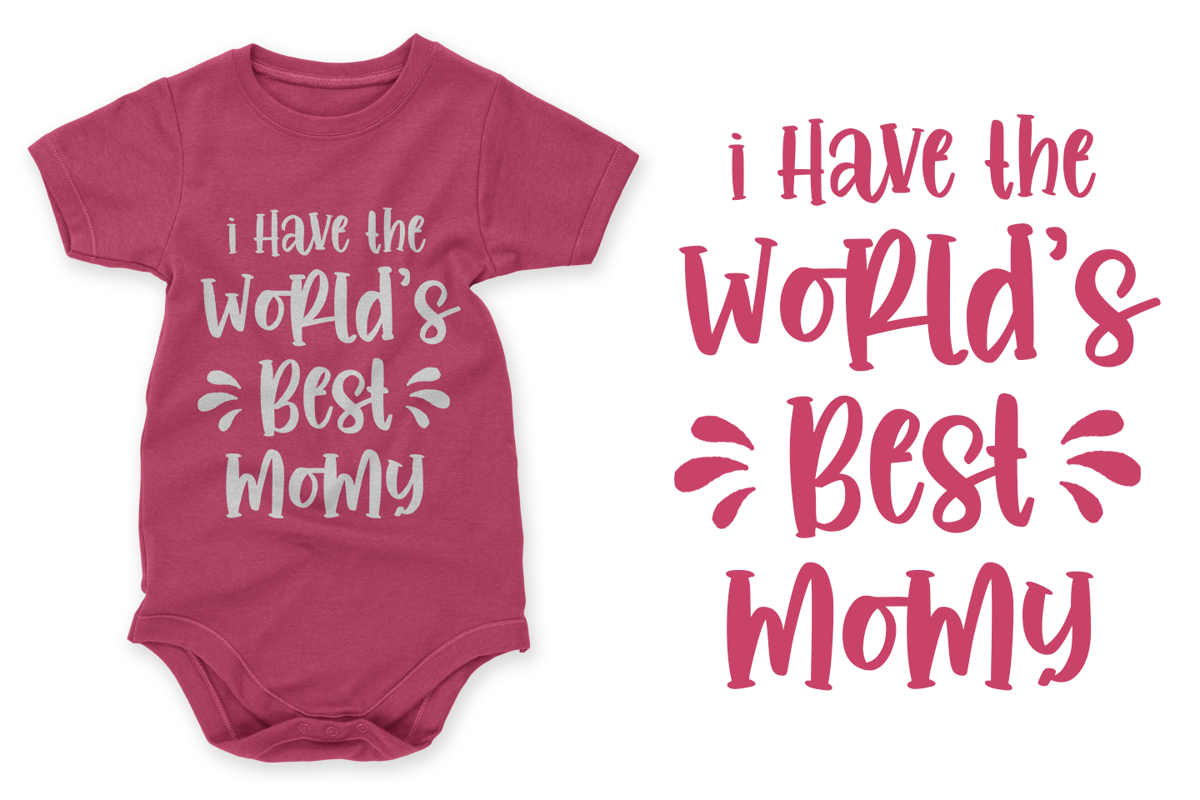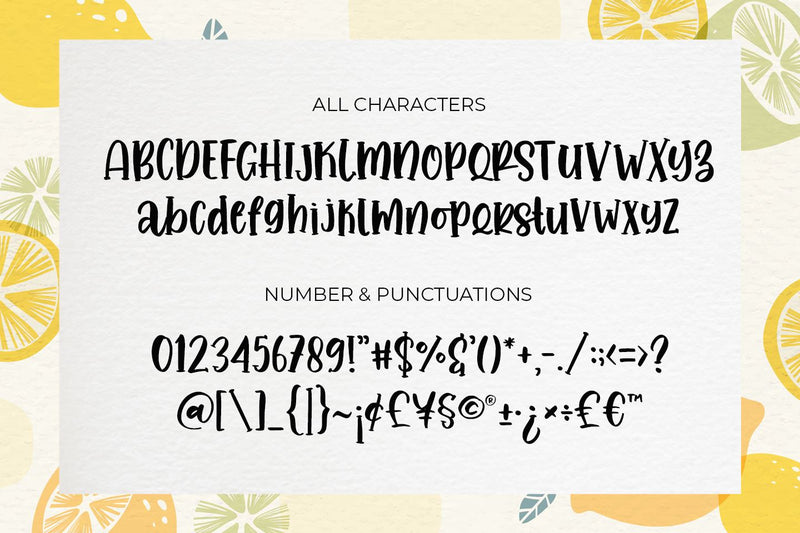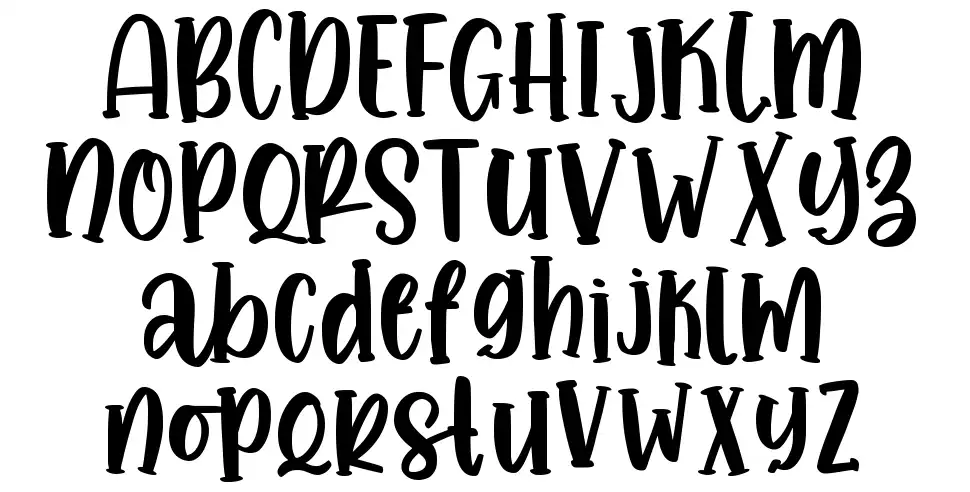
Lemonade Fabrica Font Free Download . Lemonade fabrica is a free font for personal use created by abo daniel. Lemonade fabrica font download is available free from fontget. In the premium version you will get doodles as a bonus. Click now to create a custom image with your own words that you can download. Download lemonade fabrica font from free cdn or use it on your website as webfont. Lemonade fabrica is a fancy type font that can be. If you want to use for personal. Lemonade fabrica is inspired by classic typography and brings its own unique style to any design project. Moreover, you can embed it to your. Free download of lemonade fabrica font. In the premium version you will get.
Lemonade Fabrica Font Free Download Lemonade fabrica is inspired by classic typography and brings its own unique style to any design project. Lemonade fabrica is inspired by classic typography and brings its own unique style to any design project. Free download of lemonade fabrica font. Moreover, you can embed it to your. If you want to use for personal. Lemonade fabrica is a free font for personal use created by abo daniel. In the premium version you will get doodles as a bonus. Download lemonade fabrica font from free cdn or use it on your website as webfont. Click now to create a custom image with your own words that you can download. Lemonade fabrica is a fancy type font that can be. Lemonade fabrica font download is available free from fontget. In the premium version you will get.